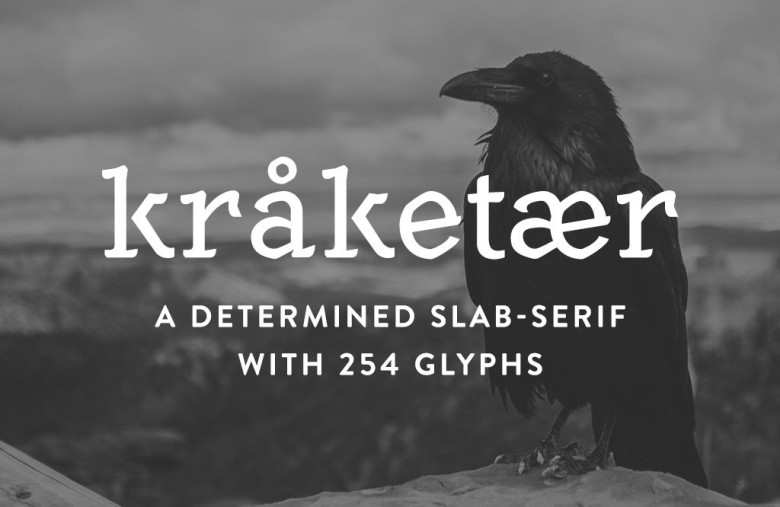
Kråketær Typeface
Hi love the fonts. I would like to introduce to you a determined slab-serif with 245 glyphs. Introducing Kråketær! It is designed and shared by Renate B Hagen. Kråketær is a slab-seriffed typeface inspired by witch-hazel in nature. The process of creating it as a graphic design student was such a challenge that I named it “Kråketær” which is the Norwegian word for crow’s feet – which is what we not only would call fine wrinkles, but also letters that are unlegible.